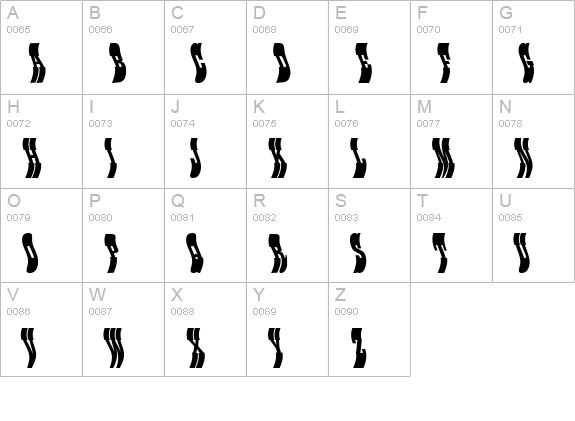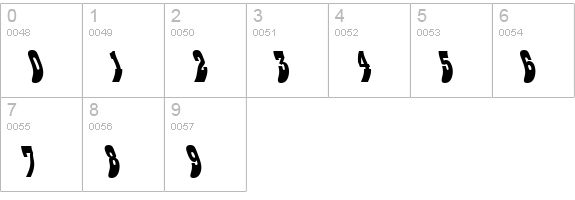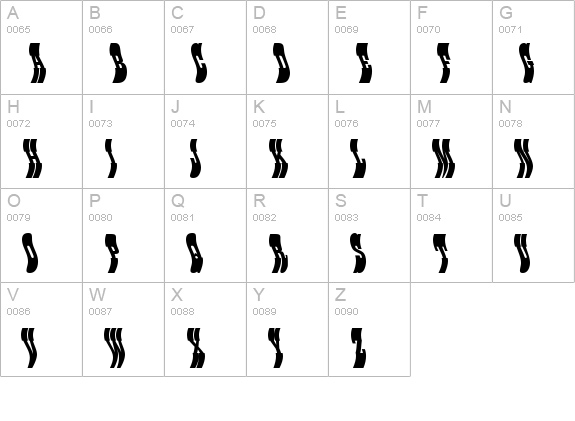
Moscoso Font Details
Introducing the exquisite Moscoso font, a stunning typeface that effortlessly combines elegance with modernity. With its clean lines and sophisticated curves, Moscoso is the perfect choice for any design project looking to make a statement. This versatile font exudes a sense of sophistication and style, making it ideal for a wide range of applications. What sets Moscoso font apart is not only its timeless beauty but also the fact that it is available for free download at FontsMarket.com. This means that you can easily access this stunning typeface and use it in your projects without any cost. Whether you're working on a branding project, a website design, or any other creative endeavor, Moscoso font is sure to elevate your work and leave a lasting impression. Don't miss out on the opportunity to add this exceptional font to your collection. Download Moscoso font today and see for yourself the impact it can have on your designs.